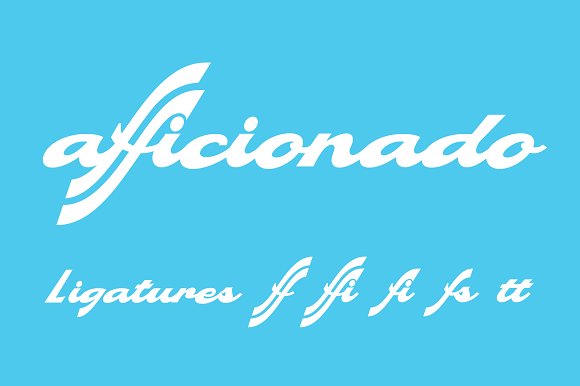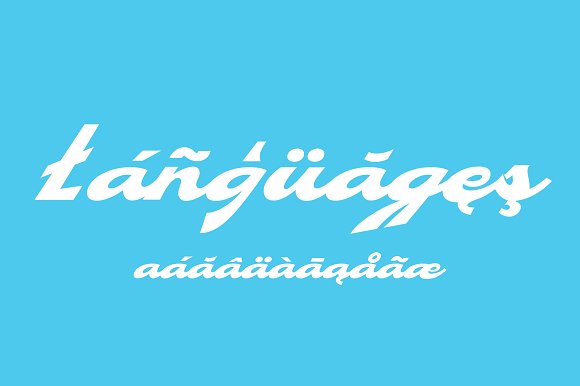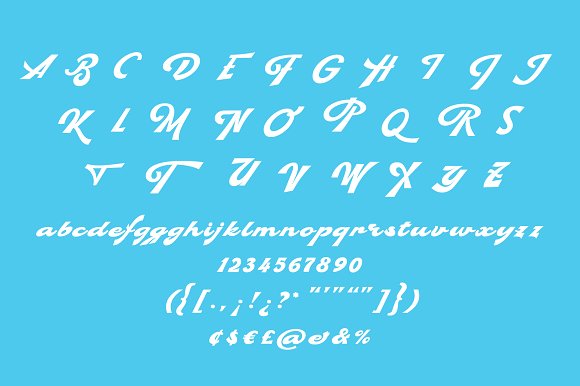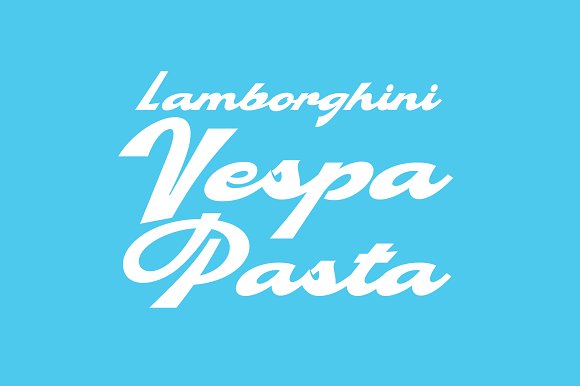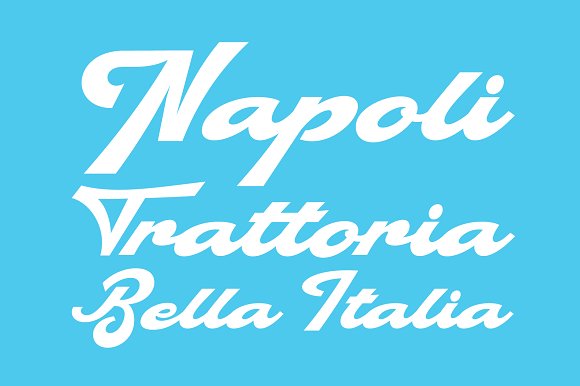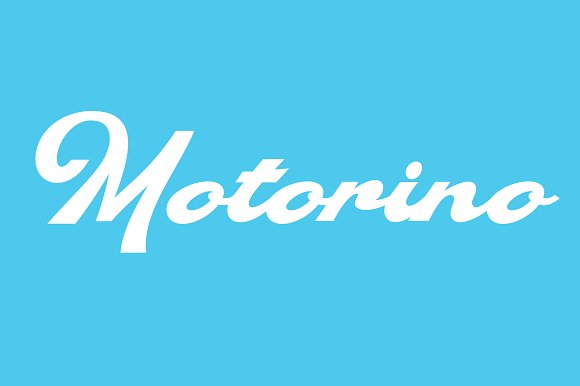
Motorino Font
Motorino, the latest script typeface from Andrei Robu. Motorino encapsulates vintage European hand lettering seen on old shop signs and reimagines their aesthetics with subtle 60’s influences. Motorino is perfect for logos and packaging projects.